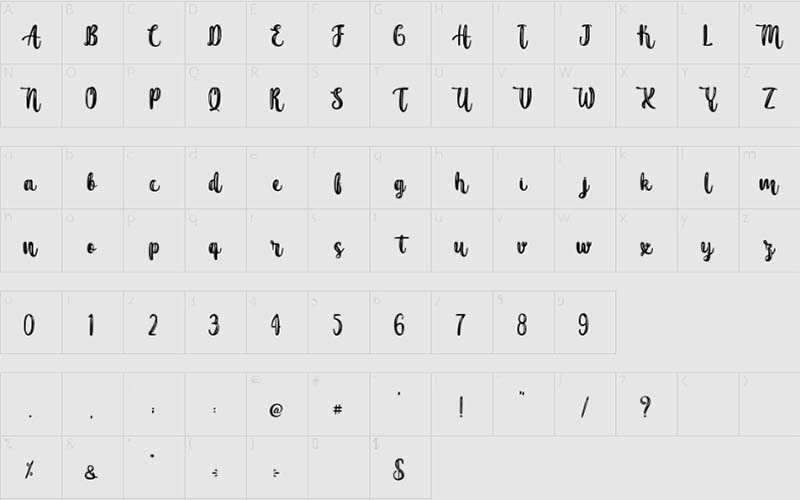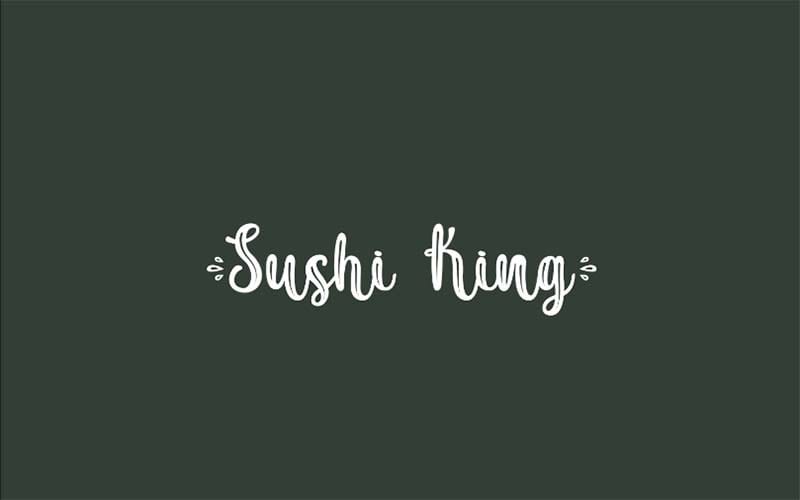
Sushi King Font is a handwritten playful typeface that comes with very unique and beautiful texture. Typhoon Type Foundry took charge of designing and publishing it for the first time.
This display typeface has come in only one style with Open Type features. The designer has come up with a beautiful plan to create a rare font that no one has made before. So, this is how he created this sketch font with his hands.
This friendly handwritten font you can use for logos, product packaging, advertisements, greeting cards, clothing, social media posters, brochures, branding names, comic books, and printing purposes as well.
Because it is a great option for creating unusual and stylish designs. As we all know, the demand for stylish designs is very high. Each character is created with concentration and time.
When you look at its structure, you will feel that a child has drawn all his characters. But in fact, the designer has designed this comic font in such a way that it looks unique.